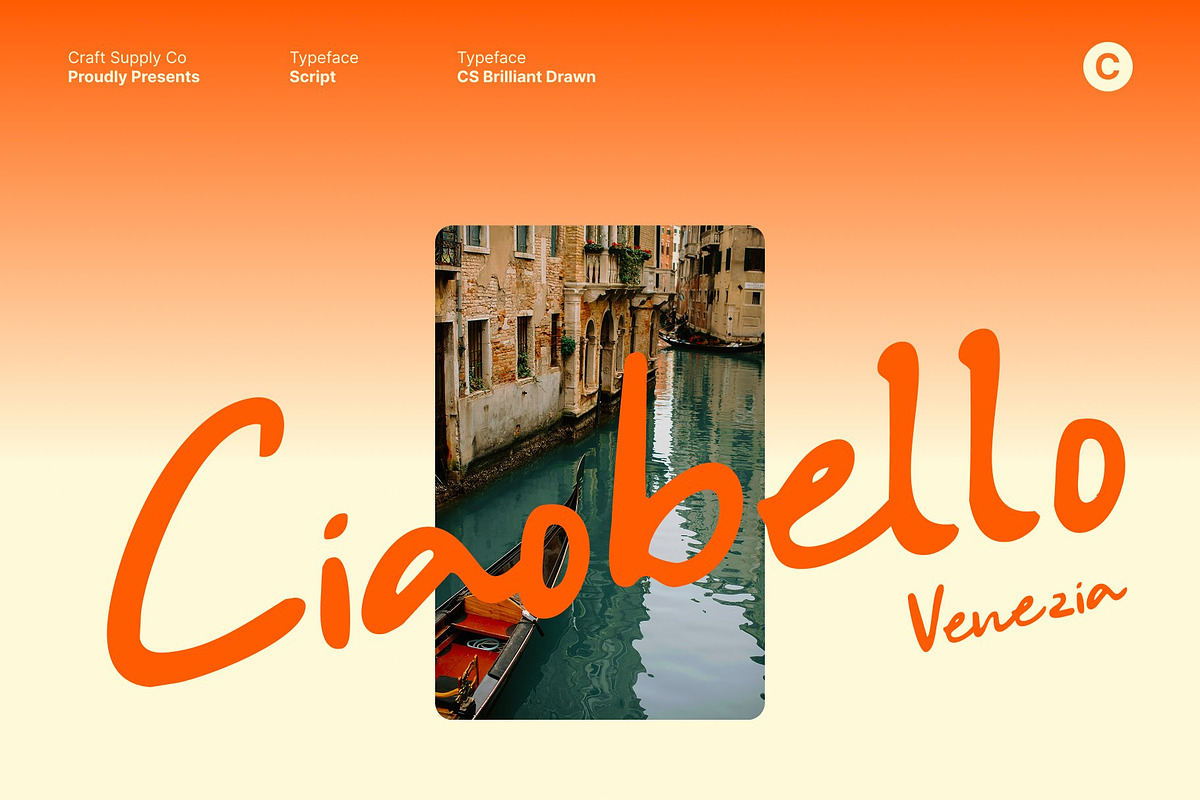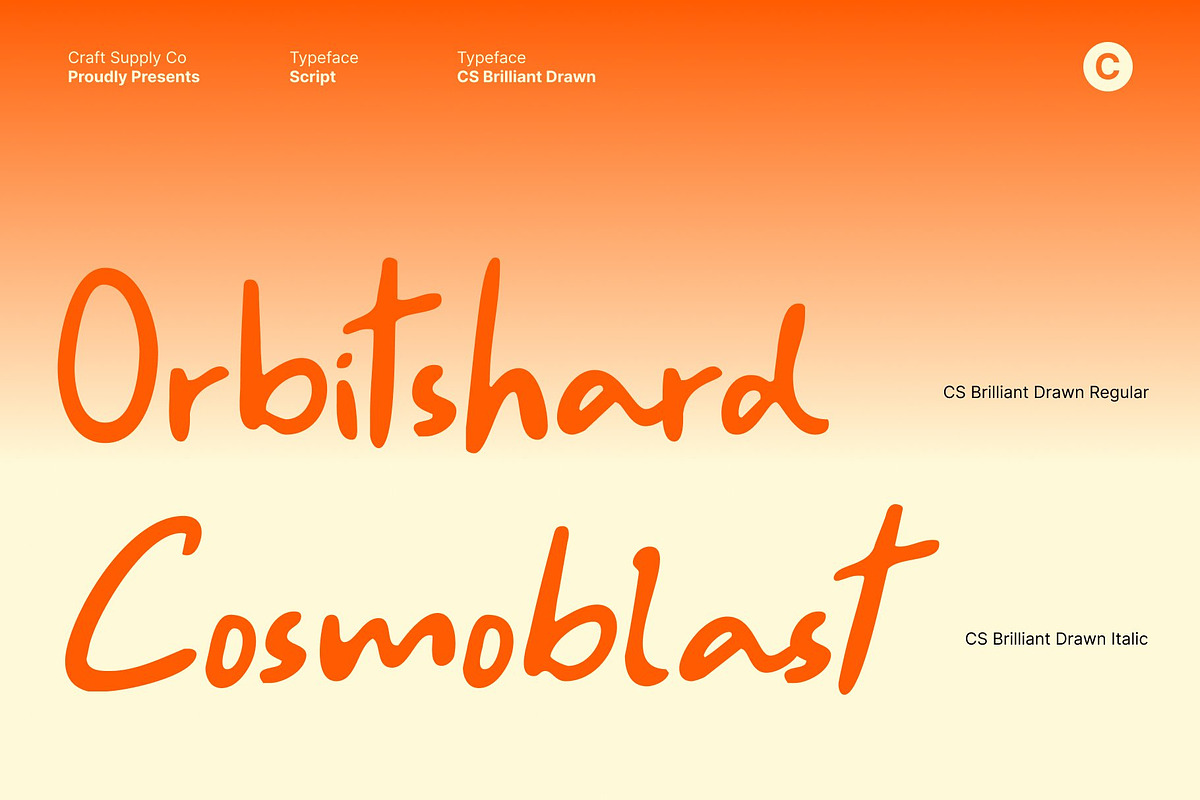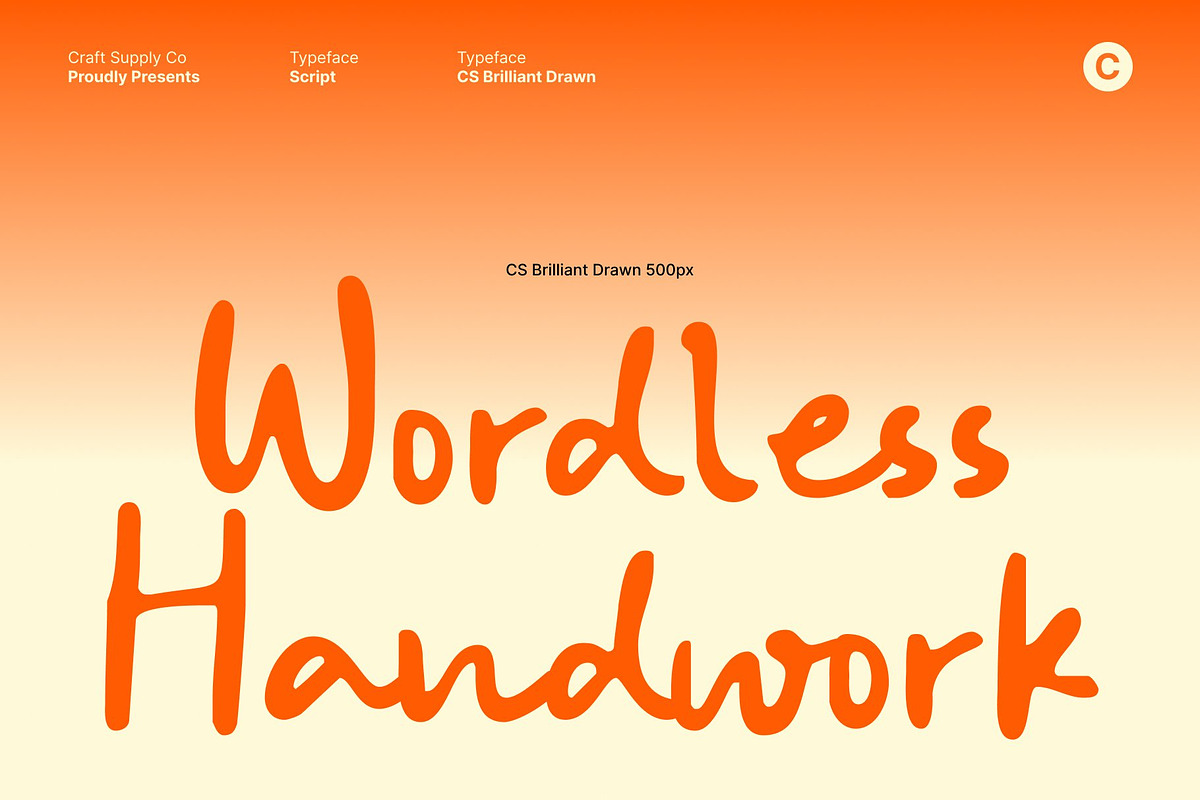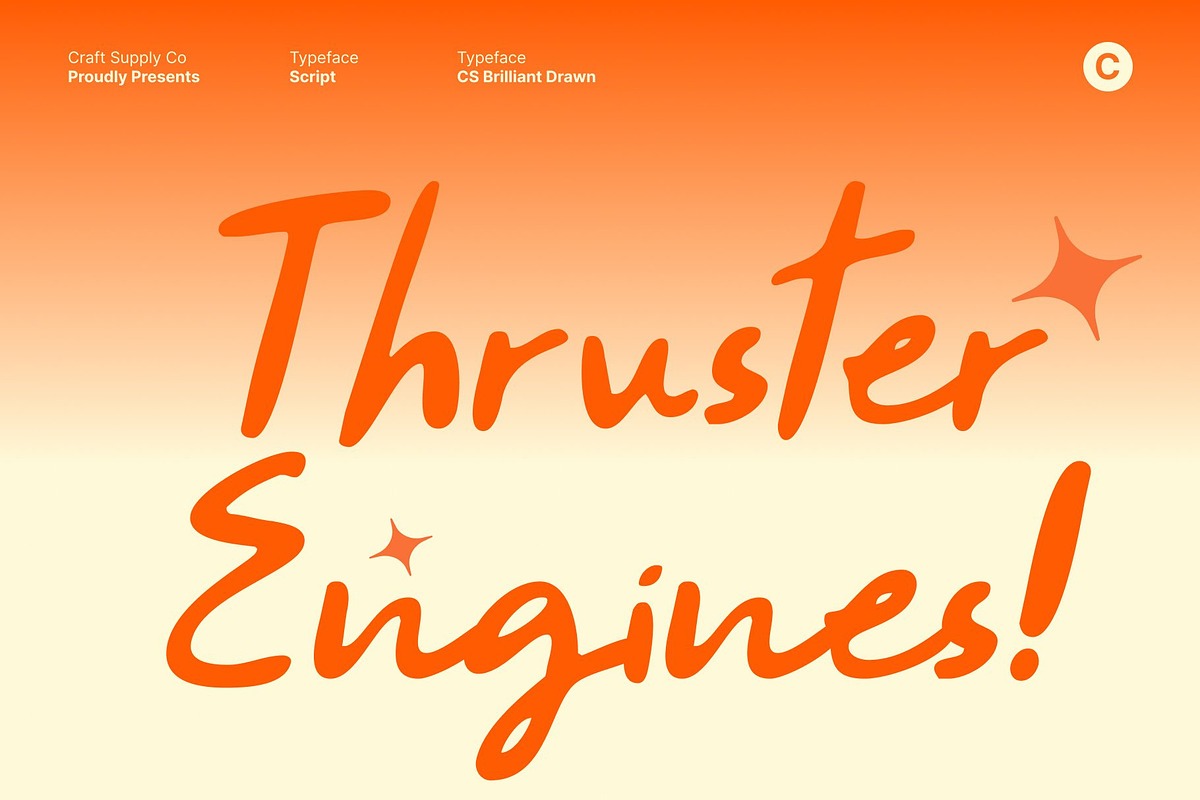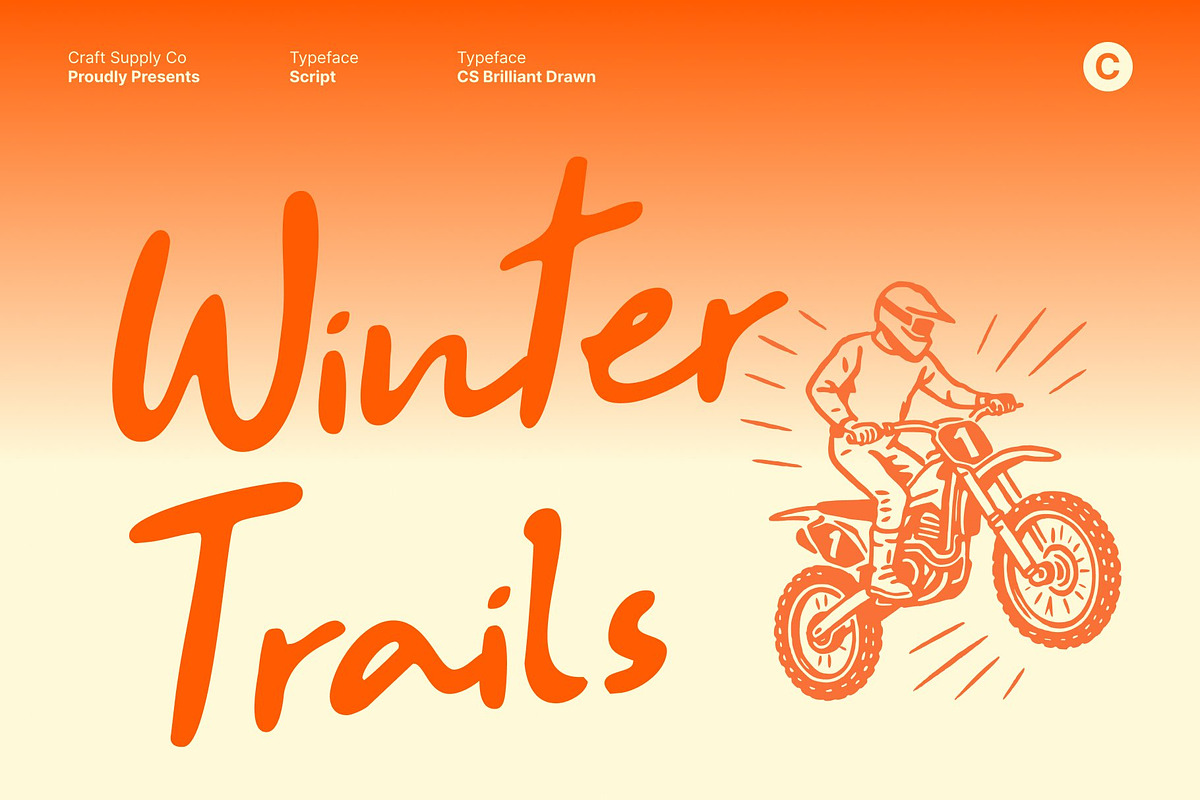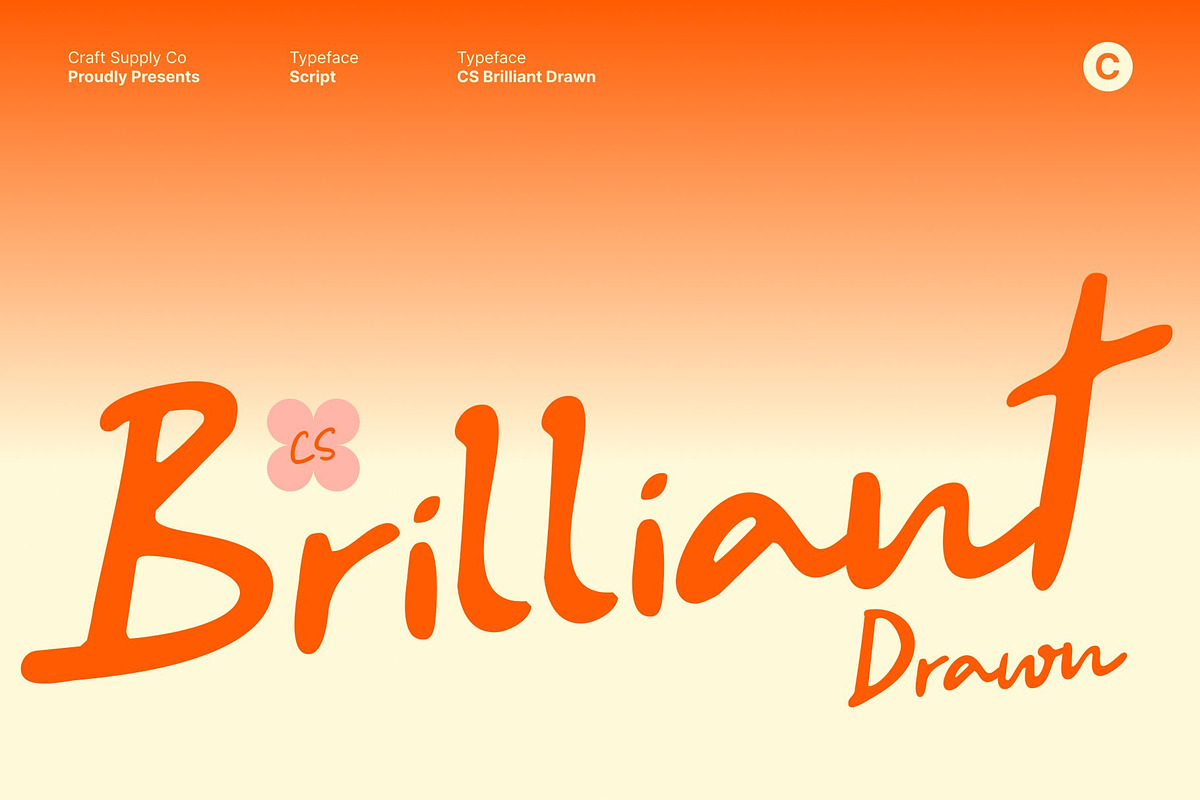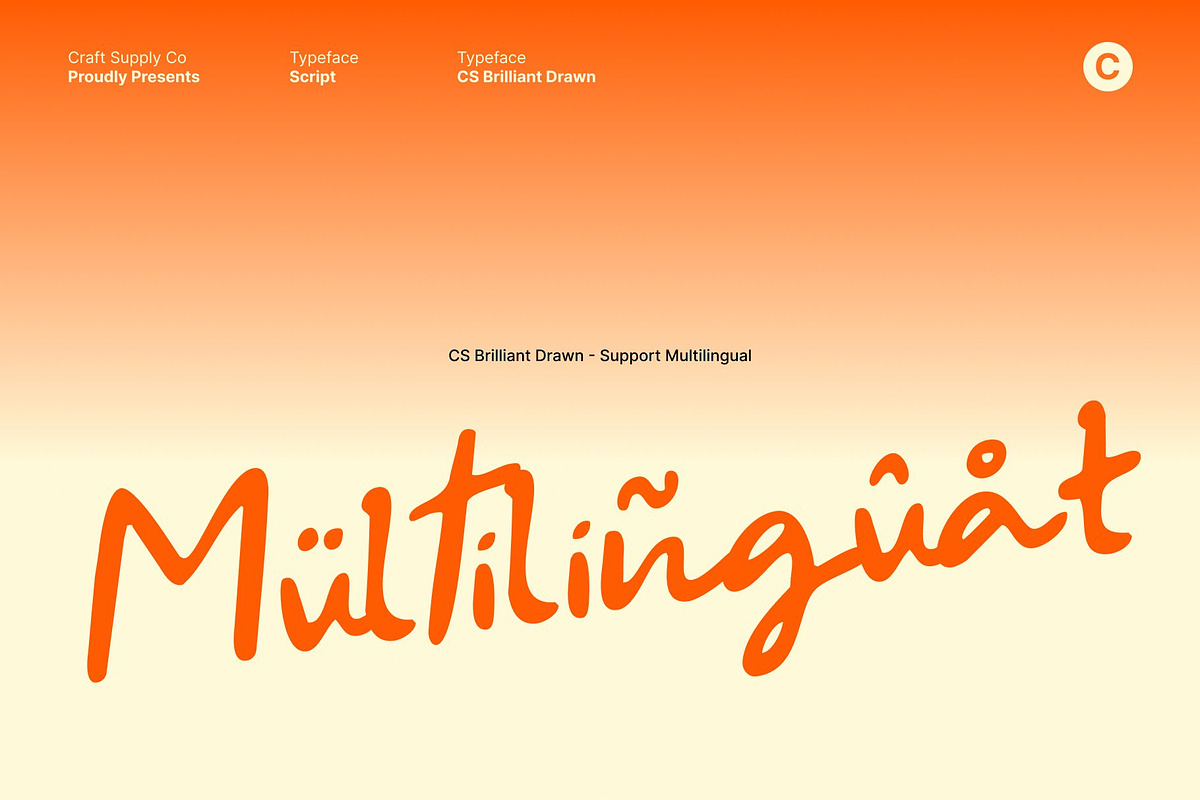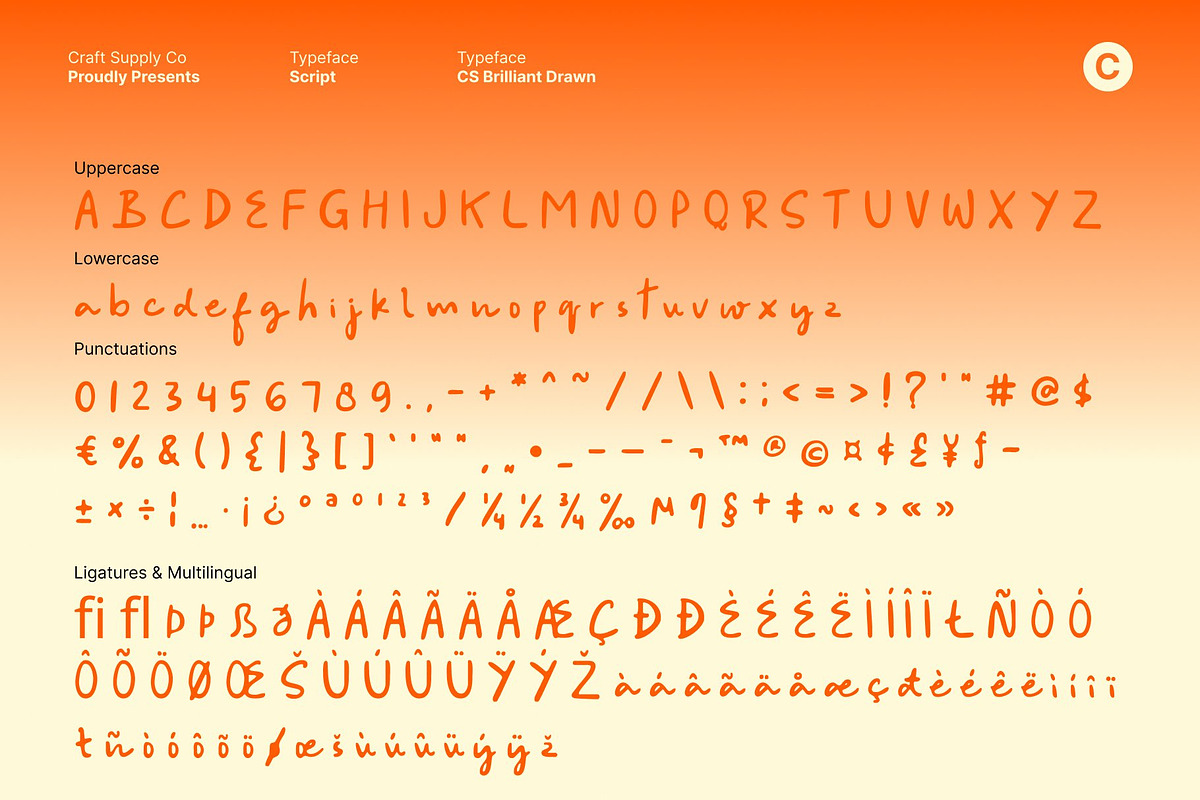
CS Brilliant Drawn
CS Brilliant Drawn – Handwritten Script with Natural Warmth
Soft Handwritten Script Font with Modern Clarity This is a handwritten script font designed to capture the beauty of natural pen strokes with a clean, modern sensibility. Its soft structure and smooth flow create a friendly and approachable appearance, blending the authenticity of handwriting with balanced clarity.
Natural Pen Strokes with Artistic Drawn Texture Inspired by real handwritten movement, this font features organic curves and subtle irregularities, enhanced by a gentle drawn effect. This handcrafted texture gives each character unique personality, adding warmth, depth, and a human touch. The drawn finish makes the font feel genuine and artistic, as if written naturally by hand rather than digitally constructed.
Expressive yet Polished and Approachable While rooted in script styling, this font maintains a soft structure that keeps layouts neat and legible. Its flowing rhythm feels casual and emotional, yet still intentional and well-balanced. This combination allows the font to communicate warmth and expression while remaining clean and versatile across different design formats.
Perfect for Personal, Lifestyle, and Casual Designs Ideal for personal branding, quotes, casual invitations, lifestyle content, packaging, and creative social media designs, this font brings an honest and welcoming tone to any project. Its natural handwritten feel and subtle drawn texture make it perfect for designs that aim to feel human, relaxed, and thoughtfully crafted, with a modern and approachable charm.
- CS Brilliant Drawn Regular
- CS Brilliant Drawn Italic